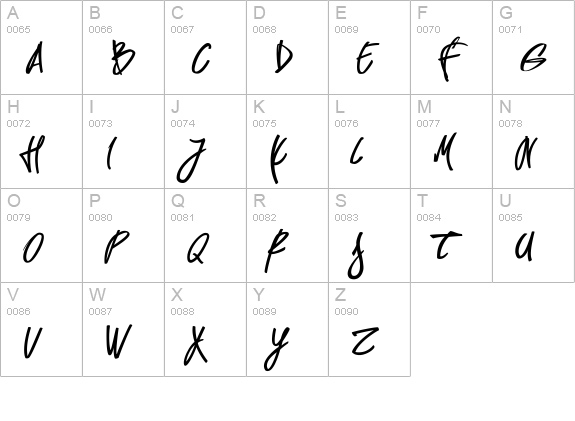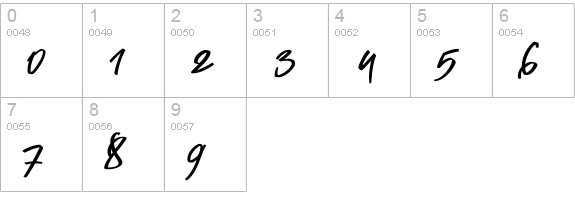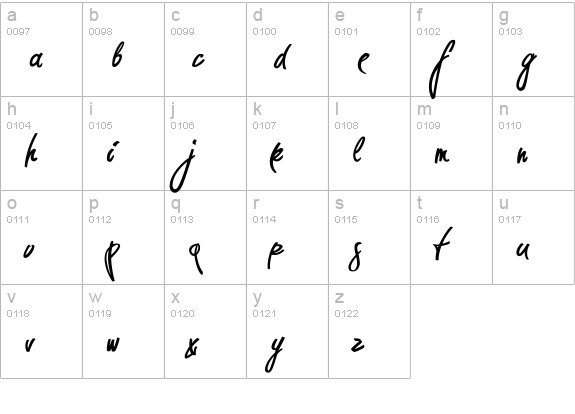
Pirmokas Font Details
Introducing Pirmokas font, a beautifully crafted typeface that exudes elegance and sophistication. With its sleek lines and modern design, Pirmokas is perfect for a wide range of creative projects, from branding to editorial design. This versatile font features a unique blend of classic and contemporary elements, making it a standout choice for designers looking to make a statement. Its clean, crisp letterforms are easy to read and perfect for both print and digital applications. And the best part? Pirmokas font is completely free to download at FontsMarket.com. That's right, you can add this stunning typeface to your collection without spending a dime. Don't miss out on this fantastic opportunity to elevate your designs with Pirmokas font. Download it today and let your creativity soar!